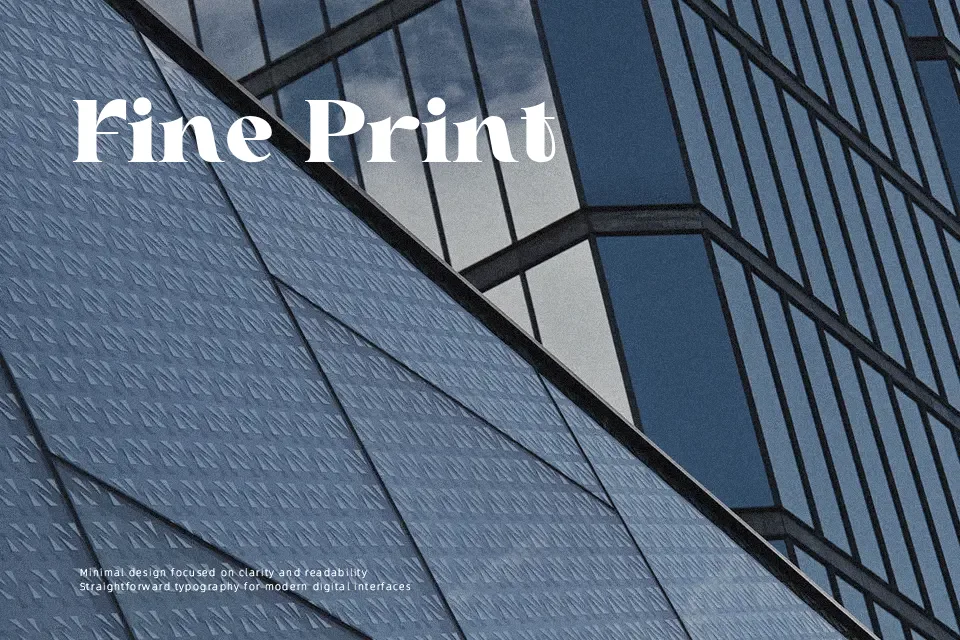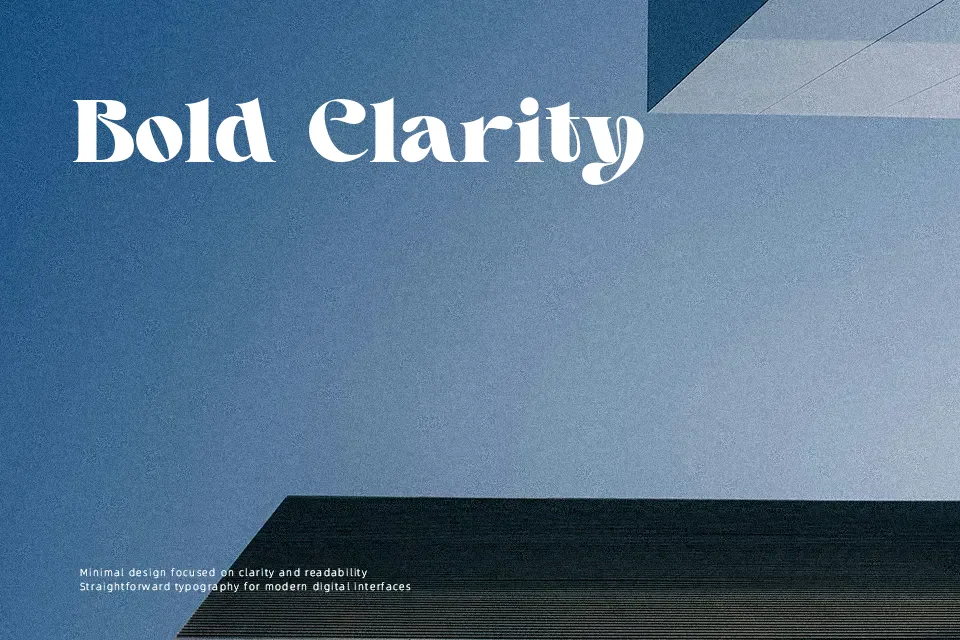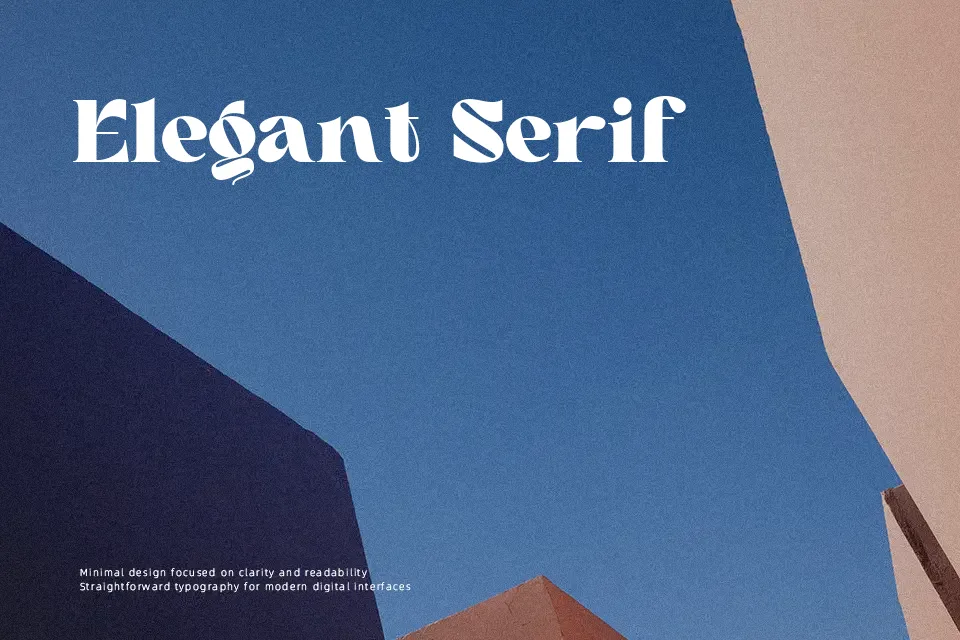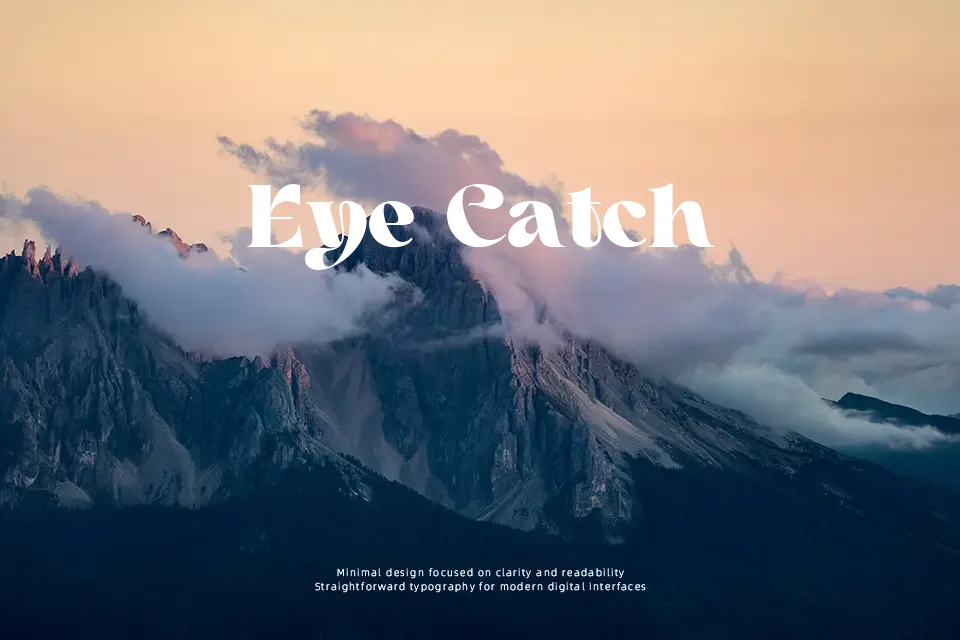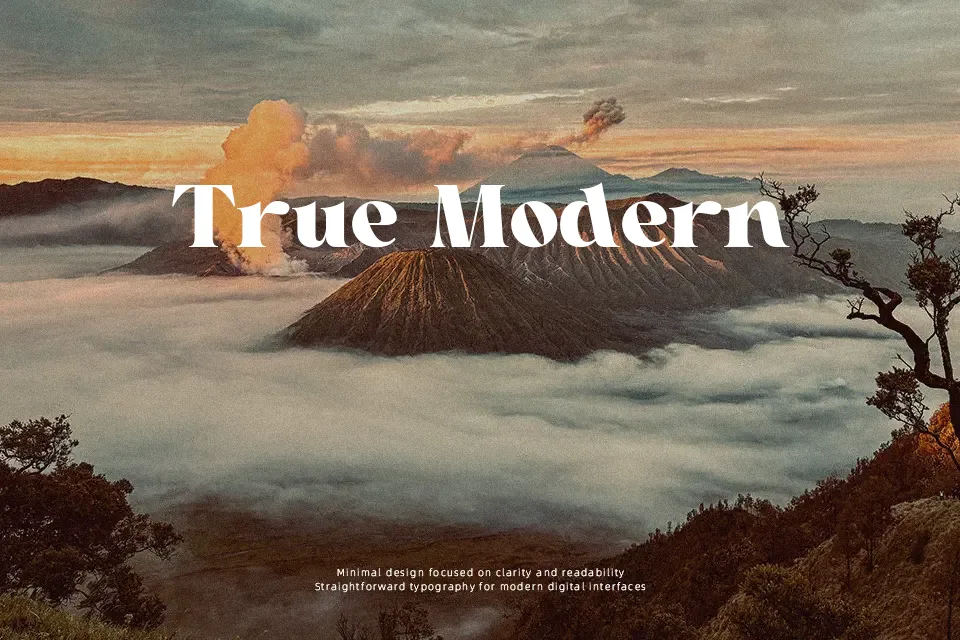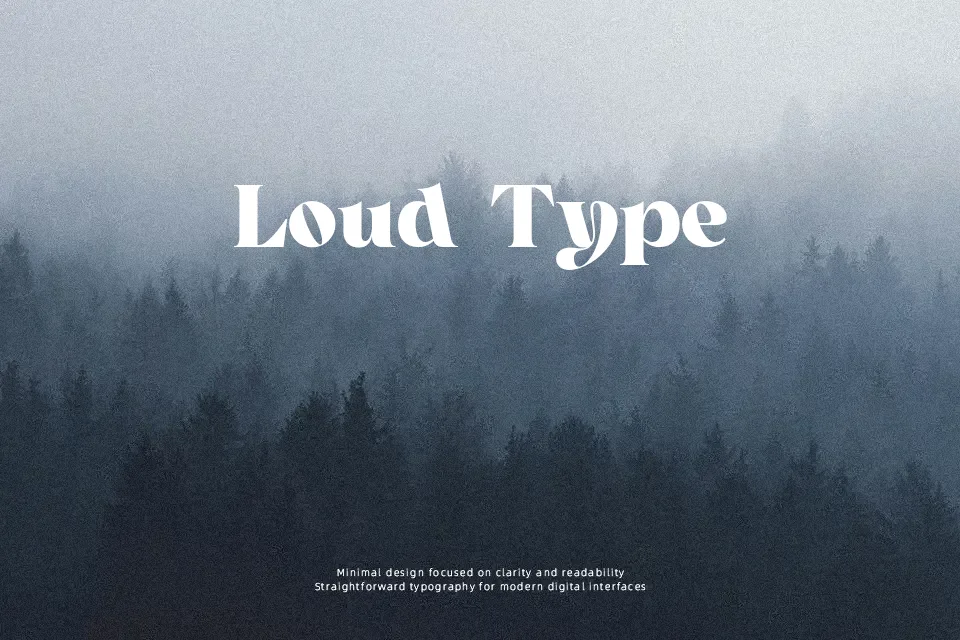
Anthy Font
Anthy is a display serif that mixes sharp, compact letterforms with classic curves, creating a stylish, slightly retro look with strong vertical rhythm and tight tracking. With multiple weights from thin to extra bold and distinctive ligatures, it handles striking headlines, logo wordmarks, app splash screens, and magazine promos more convincingly than body copy. The family works best when you keep text short and impactful; long paragraphs can feel dense because of its narrow spacing and decorative details. Use it when you need character and presence, but switch to a simpler serif or sans serif for long-form reading.
brand headlines and wordmarks
app or website hero titles
editorial covers and feature pull quotes
formal corporate reports
small UI labels or captions
dense data-heavy layouts